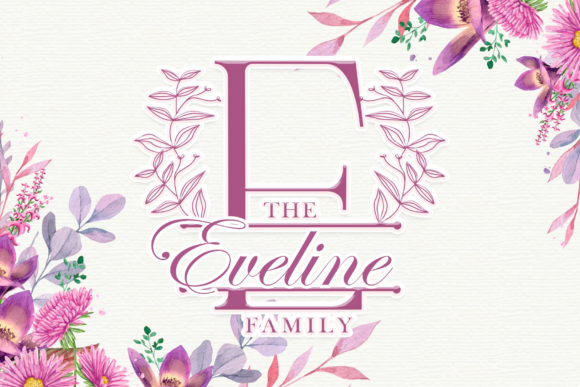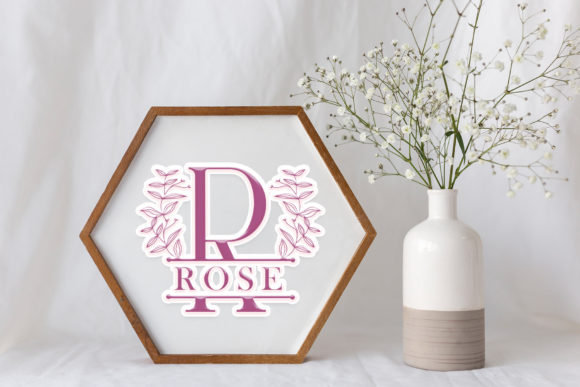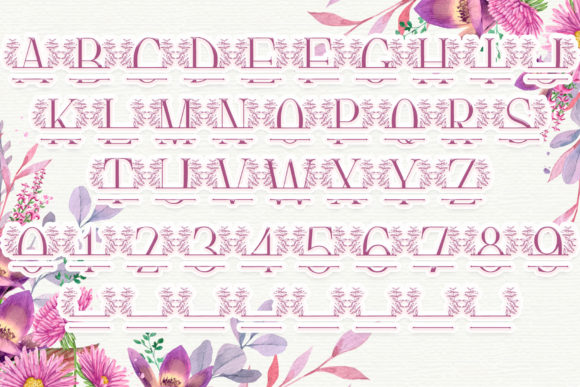
Get Ready to Bloom Your Designs with Garden Leaves Line Font
Have you ever found yourself staring at a blank page, searching for the perfect font to bring your creative idea to life? We’ve all been there. As designers, we know that the right font can make or break a project. And that’s exactly why we’re excited to introduce you to Garden Leaves Line Font – a stunning, elegant, and unique decorative font that will elevate your crafty ideas to new heights.
This beautiful font combines elegant characters with fresh, leafy wreaths, creating a look that’s both timeless and modern. Whether you’re a seasoned designer or a hobbyist, Garden Leaves Line Font is a valuable addition to your toolkit. With its versatility and sophistication, it’s the perfect choice for adding a touch of whimsy and elegance to your designs.
Garden Leaves Line Font Key Features
- Unique Characteristics: The font features a unique blend of natural and modern elements, with delicate lines and subtle texture, creating a sophisticated and elegant look.
Garden Leaves Line Font Review
I recently had the chance to work with the Garden Leaves Line font, and I must say it’s a beautiful addition to any design project. ✨ The elegant lines and subtle curves give it a unique, organic feel that’s perfect for nature-inspired themes or luxury branding.
Here are some of the things that I think work well:
- ✨ The font’s versatility: it works well in both serif and sans-serif contexts, making it easy to adapt to different design styles.
- ✨ The high level of detail: the font’s intricate lines and subtle textures add a level of sophistication that’s hard to find in other fonts.
- ✨ The wide range of weights: from light to bold, the font’s various weights offer a lot of flexibility when it comes to balancing text and visuals.
However, I do have a few reservations:
- ⚠️ The font can be a bit difficult to read in small sizes, especially in low-resolution contexts.
- ⚠️ Some of the characters may require a bit of tweaking to get them to render correctly, especially in certain operating systems.
Overall, I think Garden Leaves Line is a great choice for designers who want to add a touch of elegance and sophistication to their projects. While it may have a few limitations, the font’s unique qualities and versatility make it a worthwhile investment for any design team.
The Garden Leaves Line Font is ideal for:
- Baby shower invitations and decorations
- Floral-themed designs and illustrations
- Whimsical and vintage-inspired designs